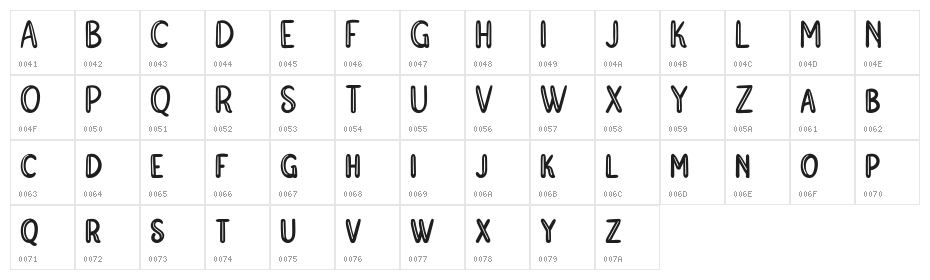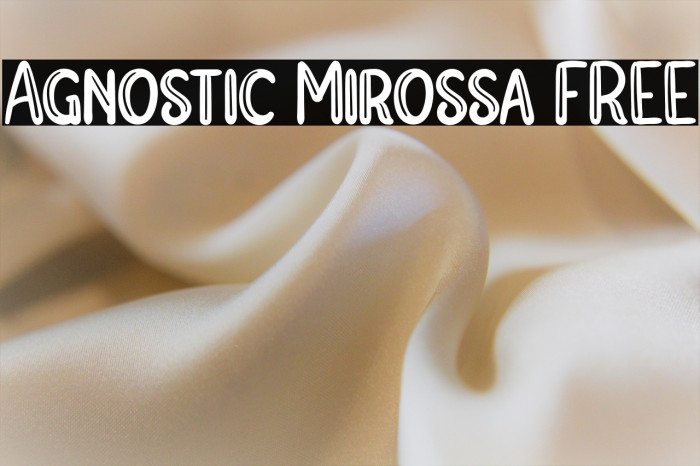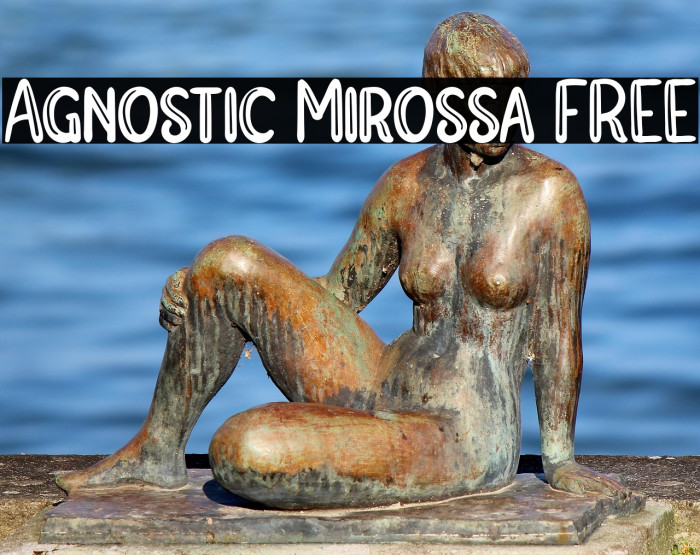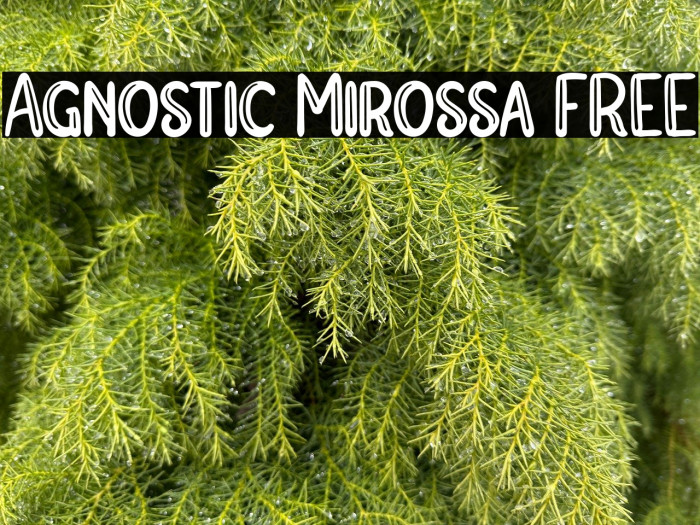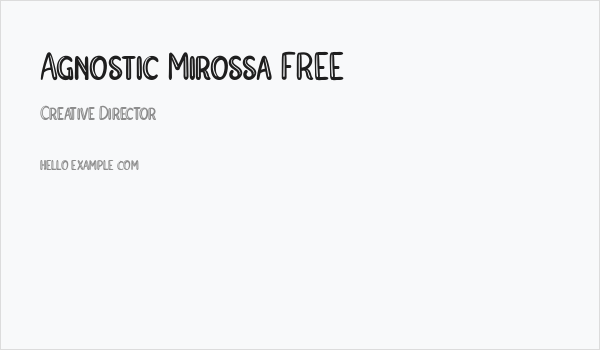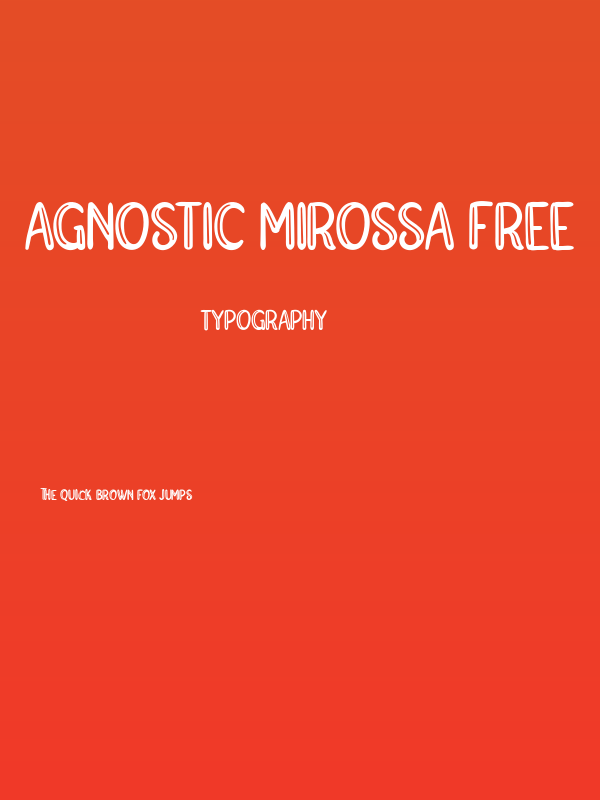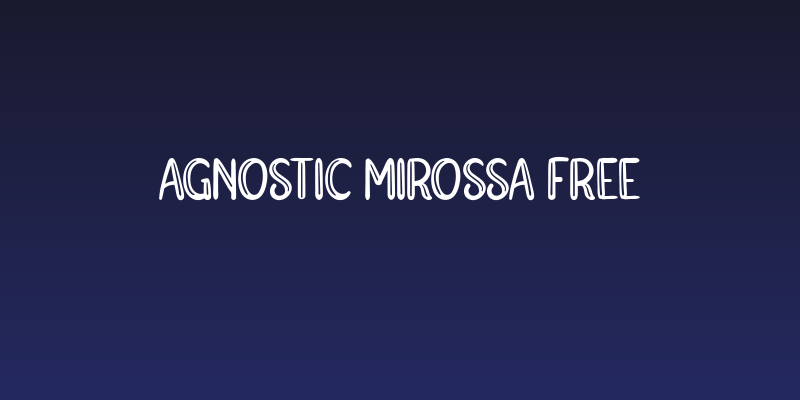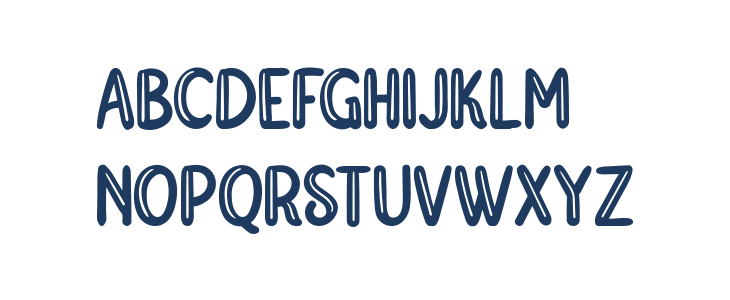
Agnostic Mirossa FREE Font
Agnostic Mirossa FREE Description
This font features a playful and bold design with rounded edges and a hand-drawn aesthetic. The characters are uppercase and maintain a consistent thickness throughout, giving a uniform appearance. The strokes are smooth and slightly curved, adding a friendly and approachable feel. The font's style is reminiscent of casual handwriting, making it suitable for informal and creative projects. Its boldness ensures readability, while the rounded forms provide a soft and inviting look. The overall design is modern yet retains a touch of whimsy, making it versatile for various uses.
| Proposed Projects | Ideal for children's books, playful branding, greeting cards, and creative posters. |